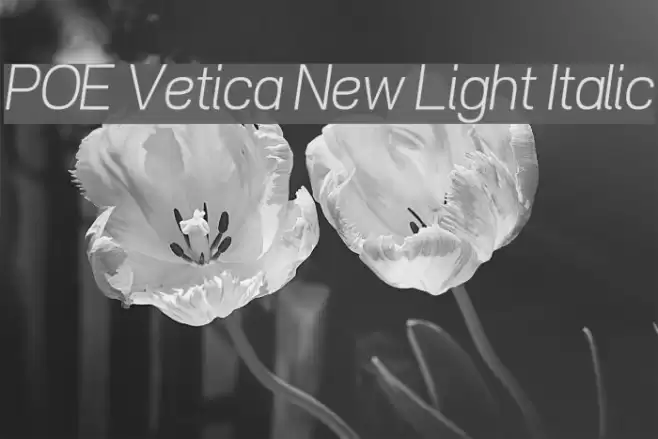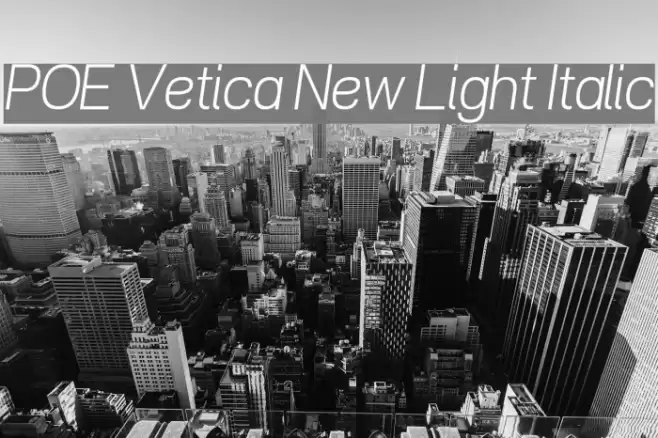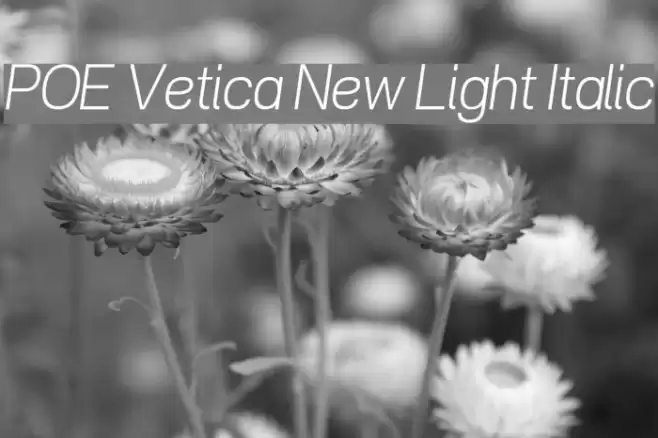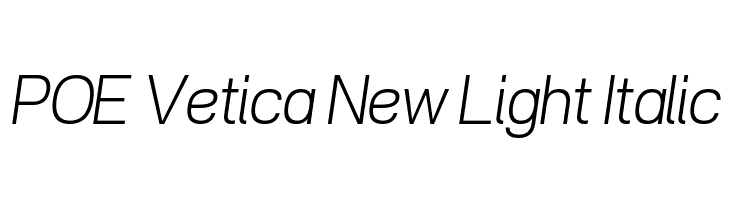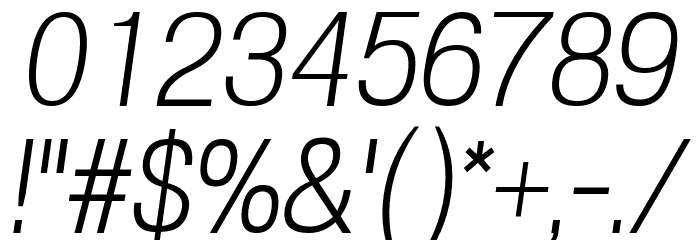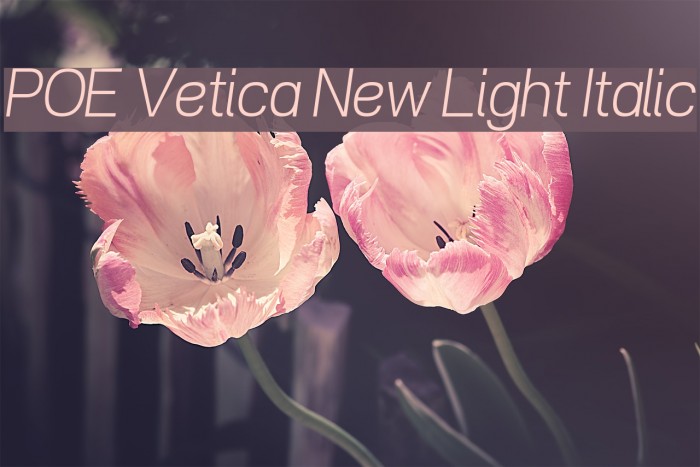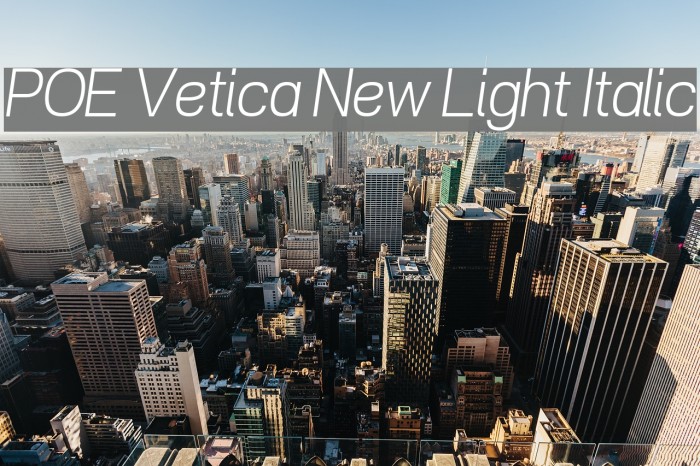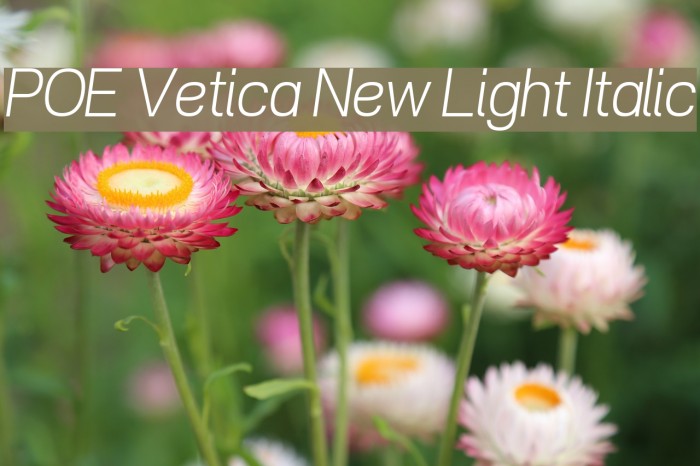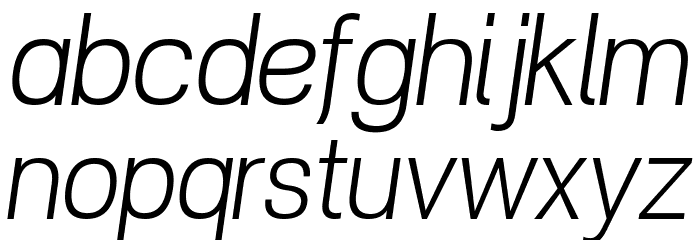
POE Vetica New Light Italic
This font exhibits a sleek and modern aesthetic with a light and airy feel. The characters are slightly italicized, giving them a dynamic and forward-leaning appearance. The strokes are consistent and smooth, with a uniform thickness that contributes to its clean look. The uppercase and lowercase letters maintain a harmonious balance, while the numerals and special characters are designed with clarity and precision. The overall design is minimalistic, making it versatile for various applications.
A sleek, modern, and light italic font with a clean and minimalistic design.
- Weight: Light